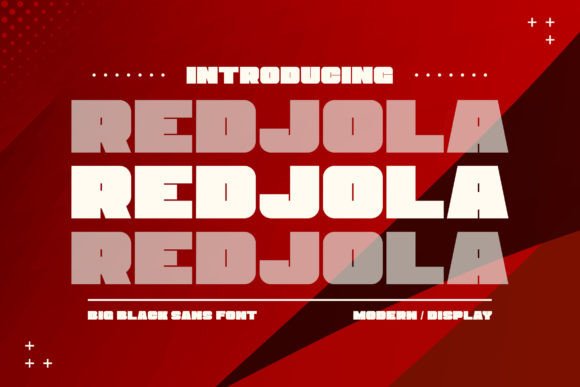
Make a Bold Statement with Redjola Font: The Ultimate Big Black Sans Font
In the world of typography, fonts play a crucial role in conveying messages, expressing emotions, and creating a lasting impression. When it comes to making a bold statement, there’s no better font than Redjola – a big black sans font that commands attention and exudes confidence. With its strong and powerful letterforms, Redjola leaves a lasting impression in any design project, making it the perfect choice for designers, marketers, and businesses looking to make a statement.
The Power of Redjola Font
Redjola is more than just a font – it’s a design statement. Its bold and powerful letterforms are meticulously crafted to showcase a perfect balance of boldness and readability. Each character is designed to stand out, making it ideal for impactful headlines, striking posters, modern branding, and more. Whether you’re looking to create a bold logo, a striking billboard, or a confident social media post, Redjola is the perfect font to make your message heard.
Key Features of Redjola Font
- Big and Bold: Redjola is a big black sans font that commands attention and makes a lasting impression.
- Perfect Balance: Each character is meticulously crafted to showcase a perfect balance of boldness and readability.
- Versatile: Redjola is ideal for impactful headlines, striking posters, modern branding, and more.
- Confident: Redjola exudes confidence and makes a bold statement in any design project.
The Benefits of Using Redjola Font
Using Redjola font in your design projects comes with numerous benefits. Here are some of the advantages of using Redjola:
Advantages of Redjola Font
- Grabs Attention: Redjola’s bold and powerful letterforms grab attention and make a lasting impression.
- Conveys Confidence: Redjola exudes confidence and makes your brand or message appear more confident.
- Increases Readability: Despite its boldness, Redjola is highly readable, making it perfect for headlines and titles.
- Versatile: Redjola can be used in various design projects, from posters and billboards to social media posts and logos.
How to Use Redjola Font Effectively
To get the most out of Redjola font, here are some tips on how to use it effectively:
Tips for Using Redjola Font
- Use for Headlines: Redjola is perfect for headlines and titles, where you want to grab attention and make a bold statement.
- Pair with Other Fonts: Redjola can be paired with other fonts to create a unique and visually appealing design.
- Experiment with Sizes: Redjola’s boldness makes it perfect for large and small sizes, so experiment with different sizes to find the one that works best for your design.
- Use for Branding: Redjola can be used for branding, including logos, business cards, and letterheads.
Redjola Font in Graphic Design
Redjola font is a popular choice among graphic designers, and for good reason. Its bold and powerful letterforms make it perfect for a variety of design projects, including:
Graphic Design Applications of Redjola Font
- Posters and Flyers: Redjola is perfect for creating striking posters and flyers that grab attention.
- Logos and Branding: Redjola can be used for logos and branding, including business cards, letterheads, and packaging.
- Billboards and Signage: Redjola’s boldness makes it perfect for billboards and signage, where you want to make a lasting impression.
- Social Media Posts: Redjola can be used for social media posts, including Facebook, Twitter, and Instagram.
In conclusion, Redjola font is a powerful and versatile font that can make a bold statement in any design project. Its strong and powerful letterforms, perfect balance of boldness and readability, and confidence-inspiring design make it the perfect choice for designers, marketers, and businesses looking to make a statement. Whether you’re looking to create a bold logo, a striking billboard, or a confident social media post, Redjola is the perfect font to make your message heard.